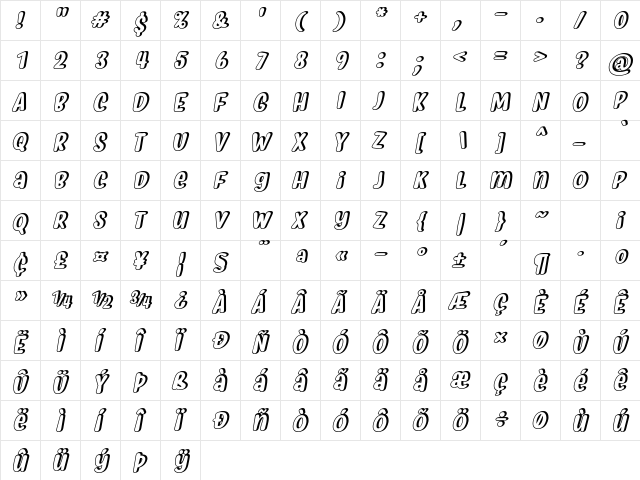
Myfrida Shadow Italic
| Foundry | 7NTypes |
| Designer | Situjuh Nazara |
Design Context for Myfrida Shadow Typeface
Myfrida Shadow brings ornamental detail and strong personality to headlines and identities, where visual impact matters more than quiet functionality. The dynamic lean of this cut emphasises speed and emphasis in any layout.
Font Pairing: Pair with a clean neutral sans-serif for body copy to let Myfrida Shadow's character lead without overwhelming the composition.
Pro Tip: Use Myfrida Shadow exclusively at display sizes — it was designed to be seen, not read at length. Let a neutral companion handle body copy.